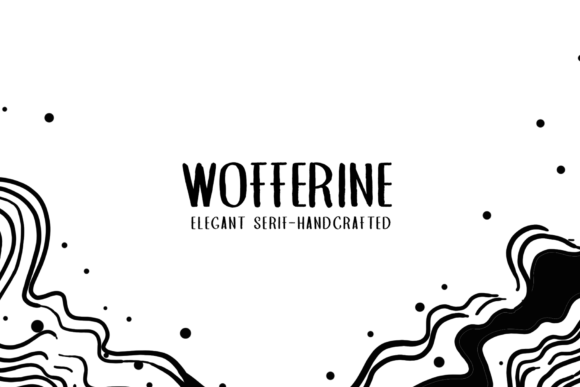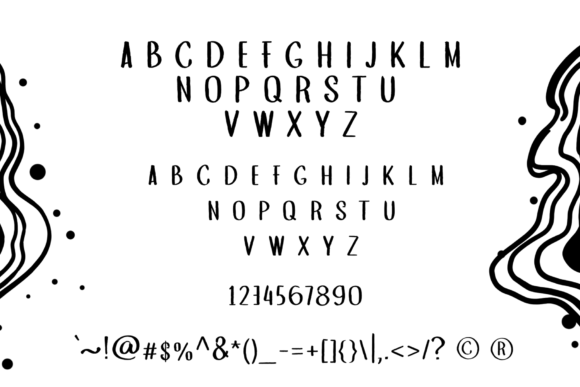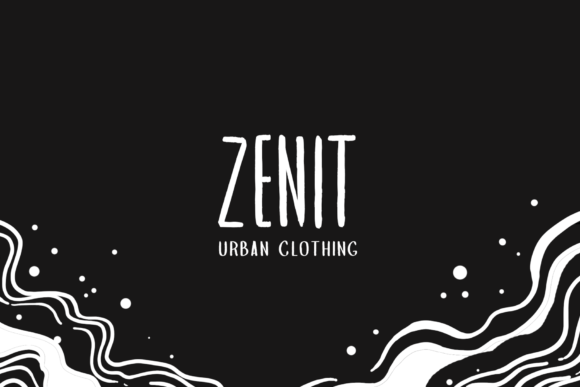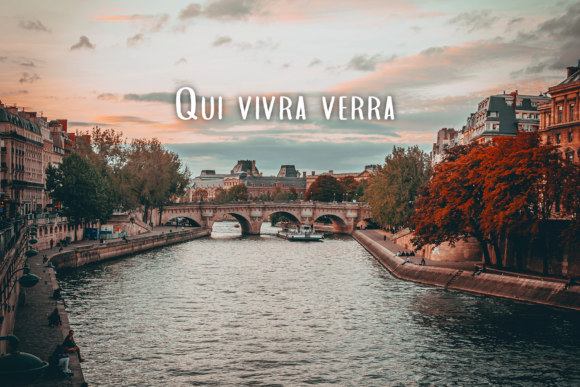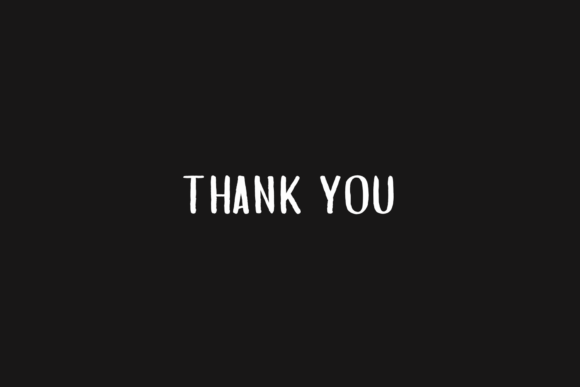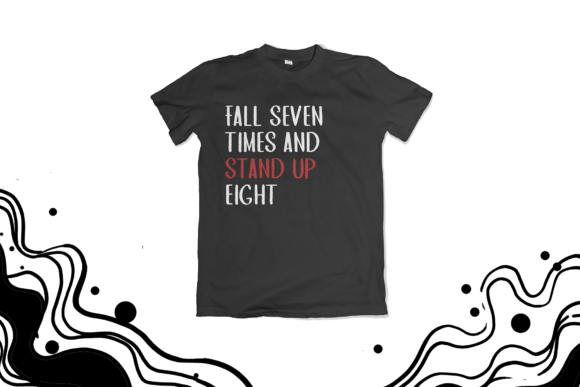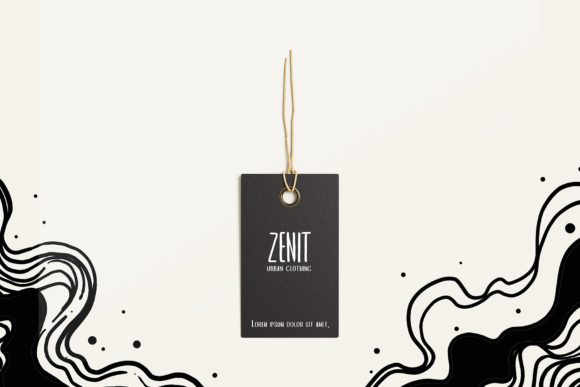
Wofferine Font
About Wofferine Font
Wofferine is a sweet and friendly handwritten font. Its natural and unique style makes it incredibly fitting to a large pool of designs. Get creative with this simple and lovely font!